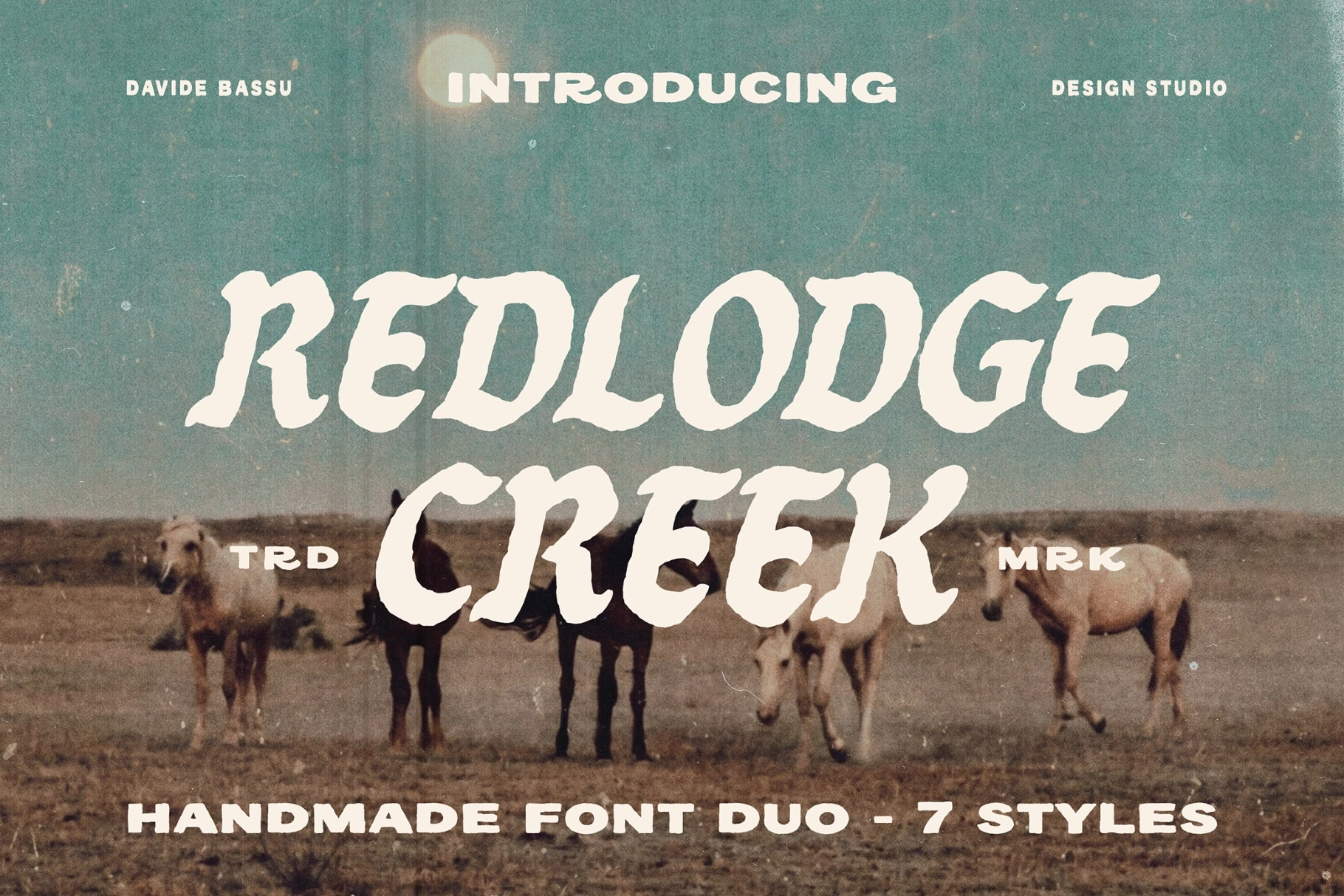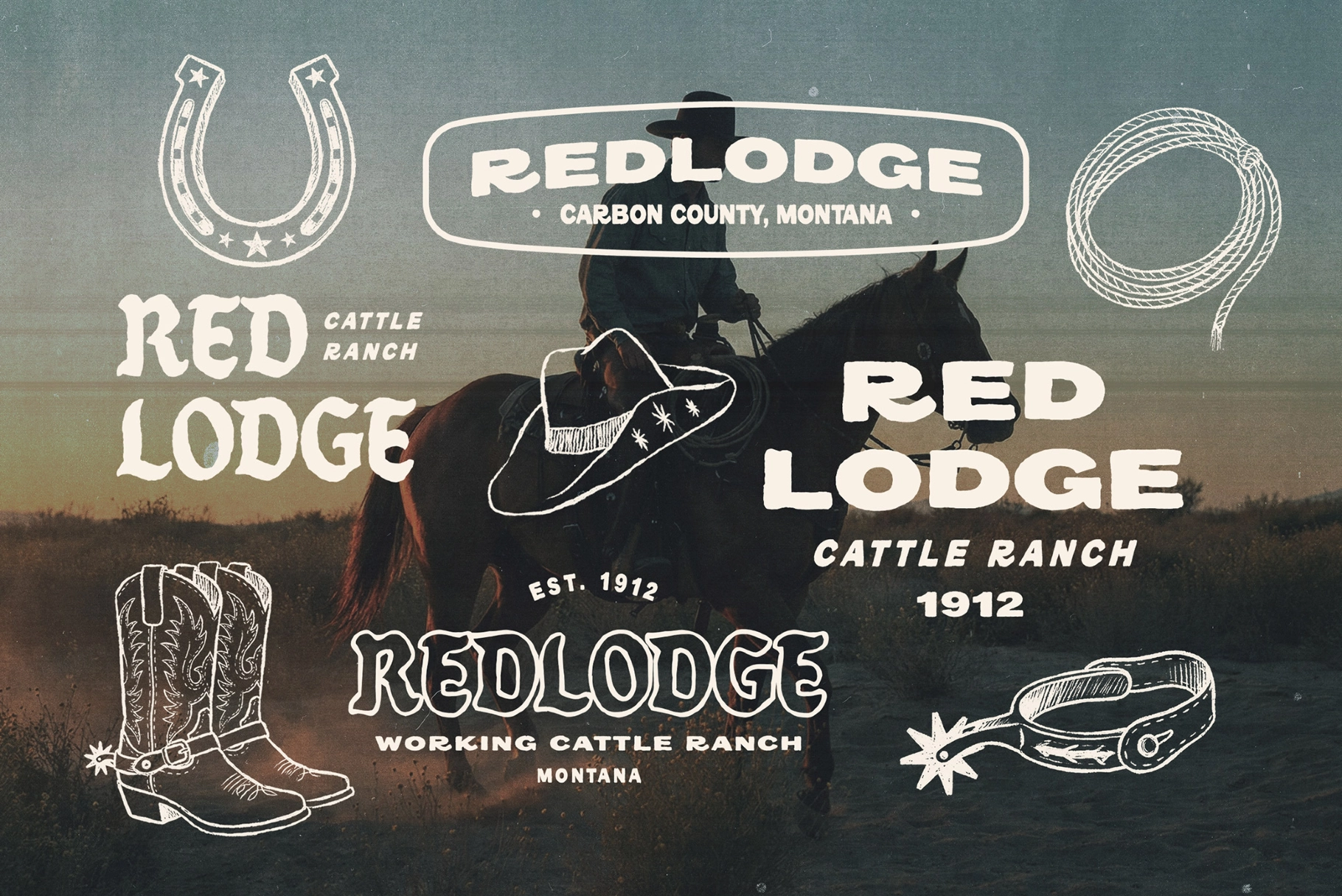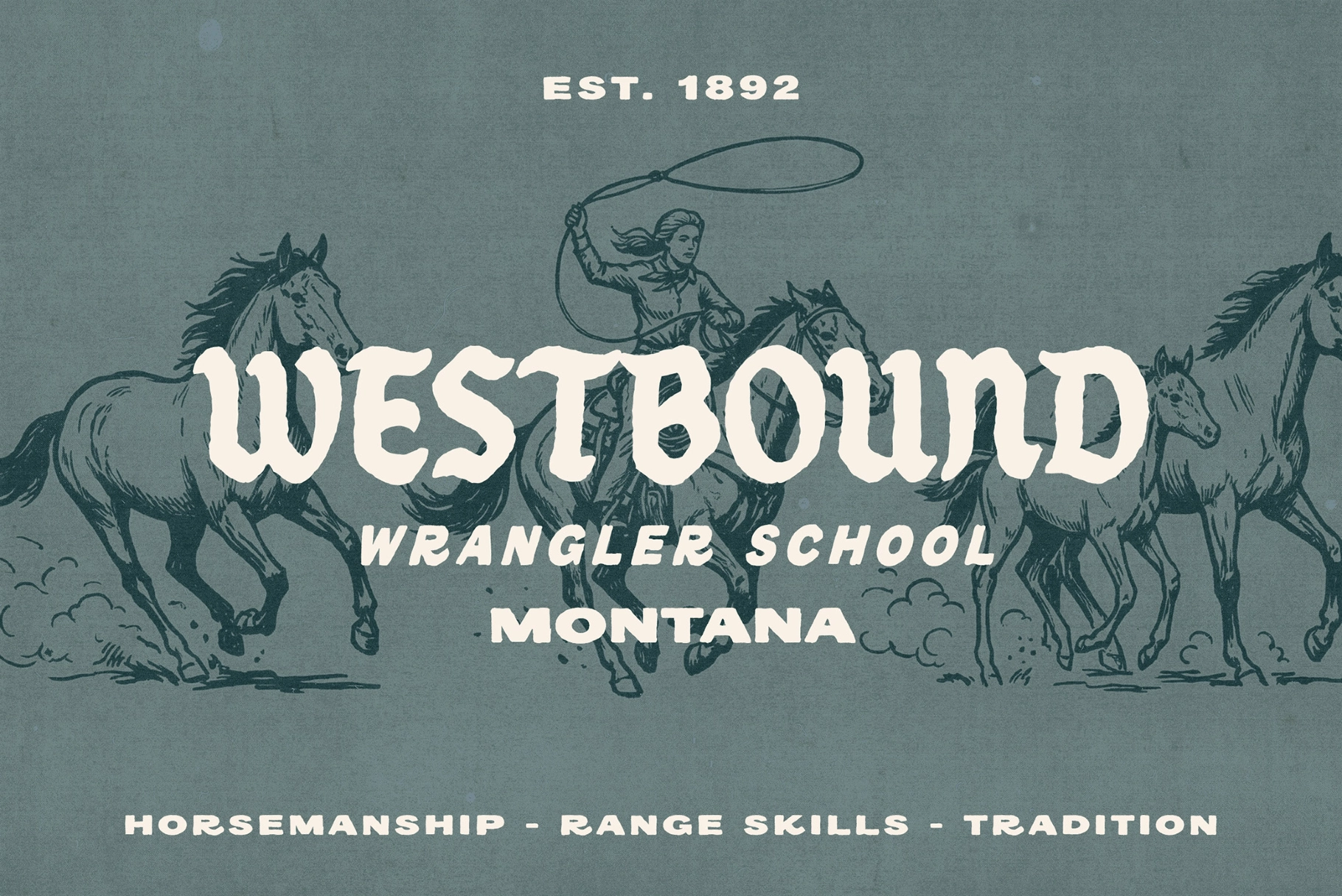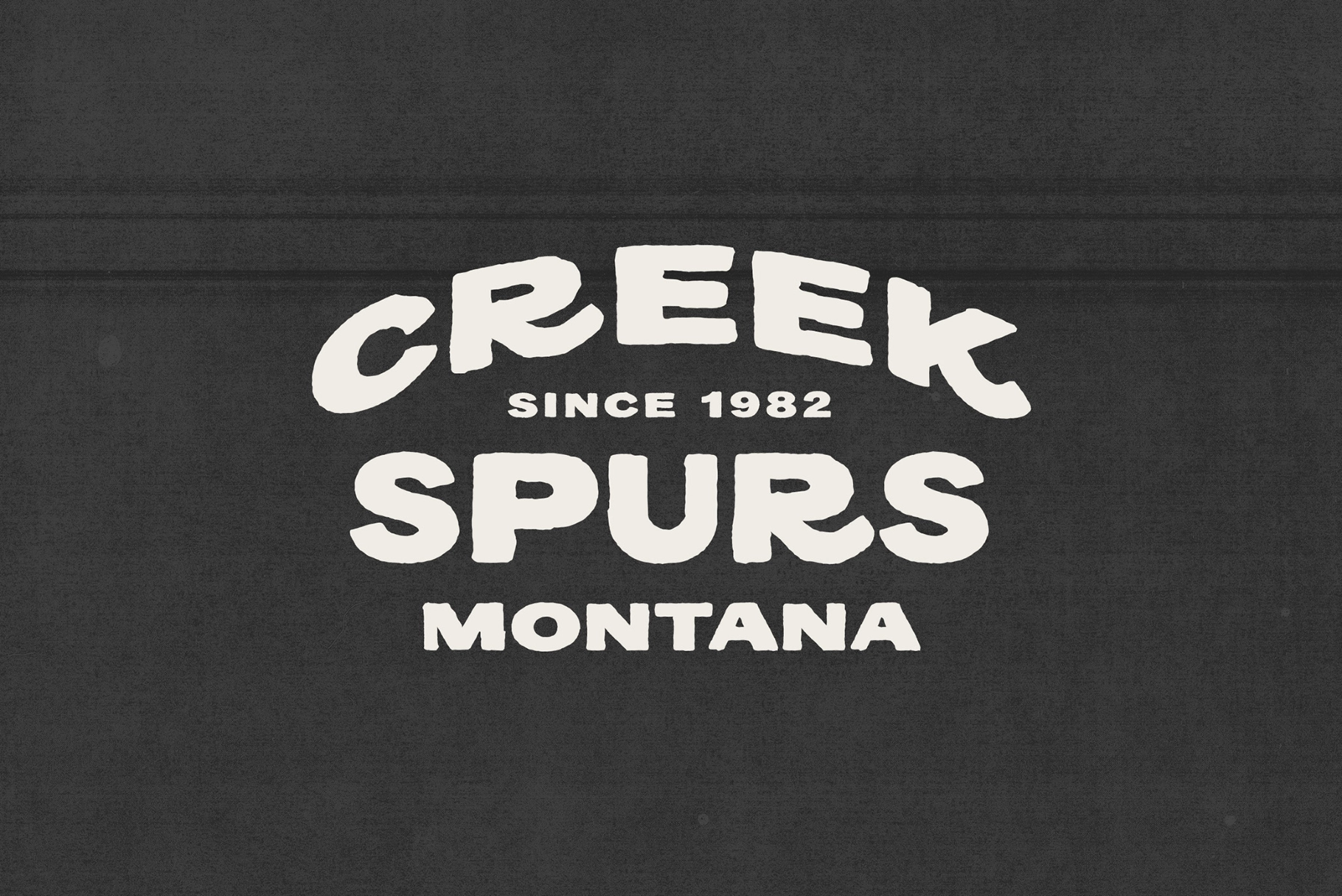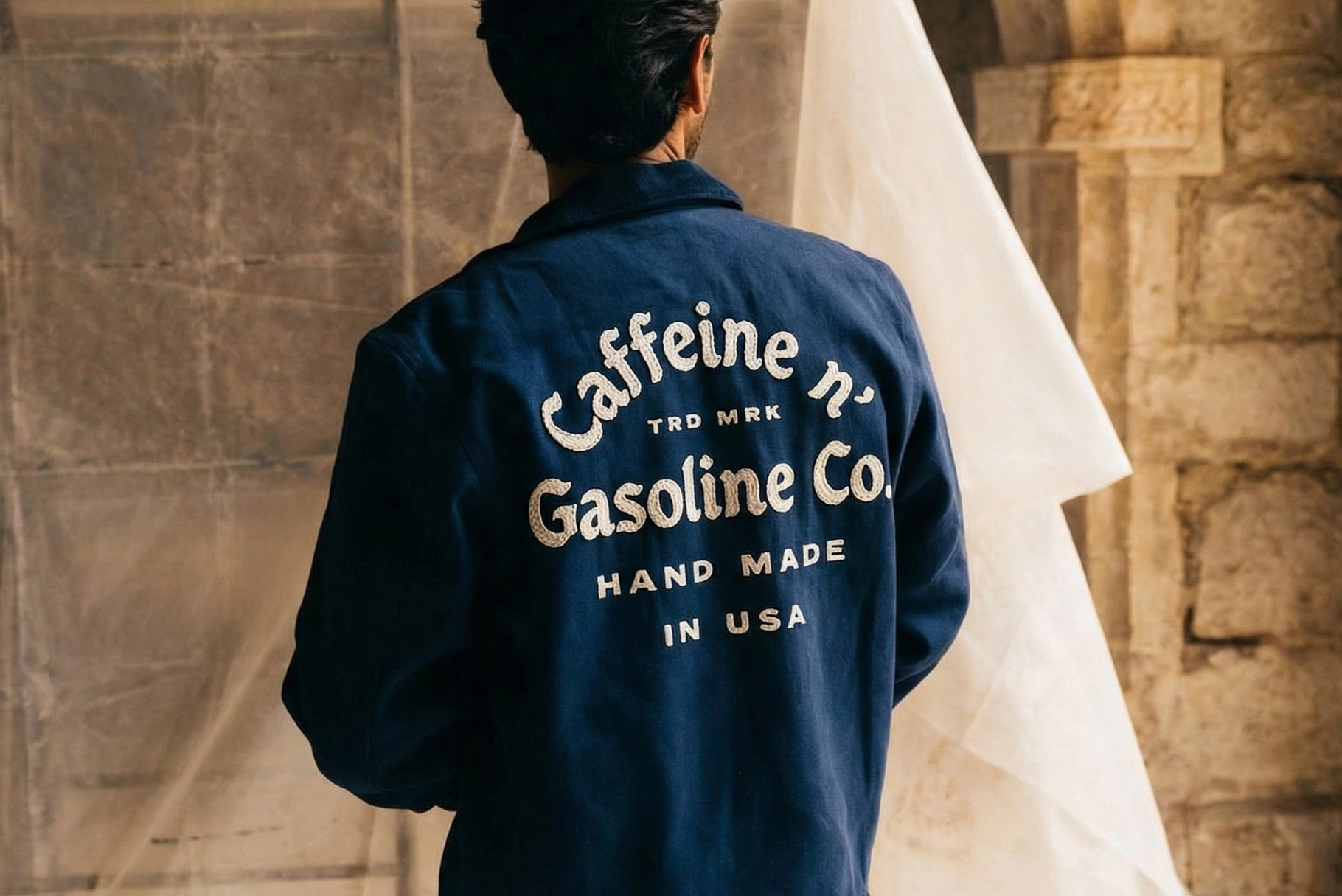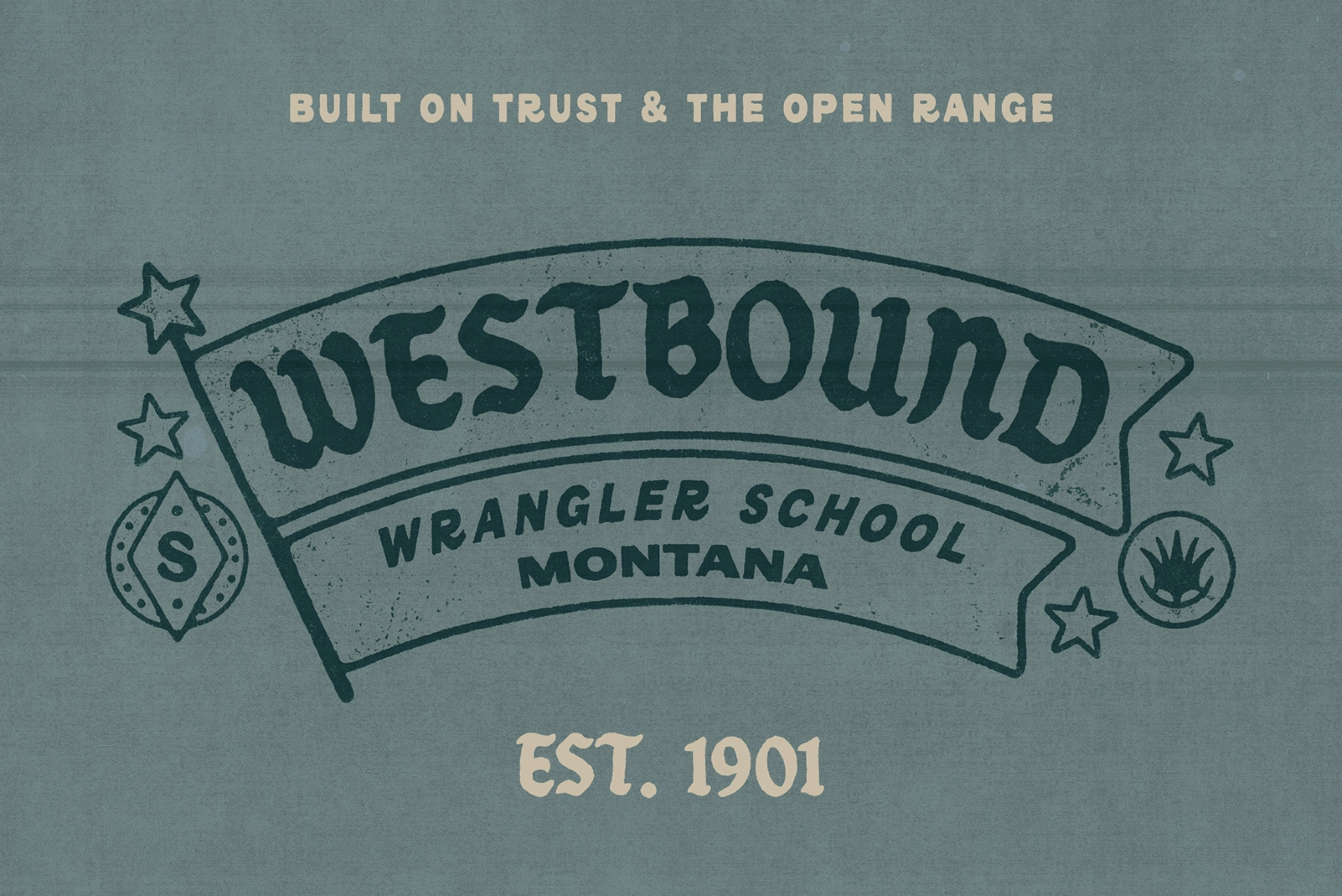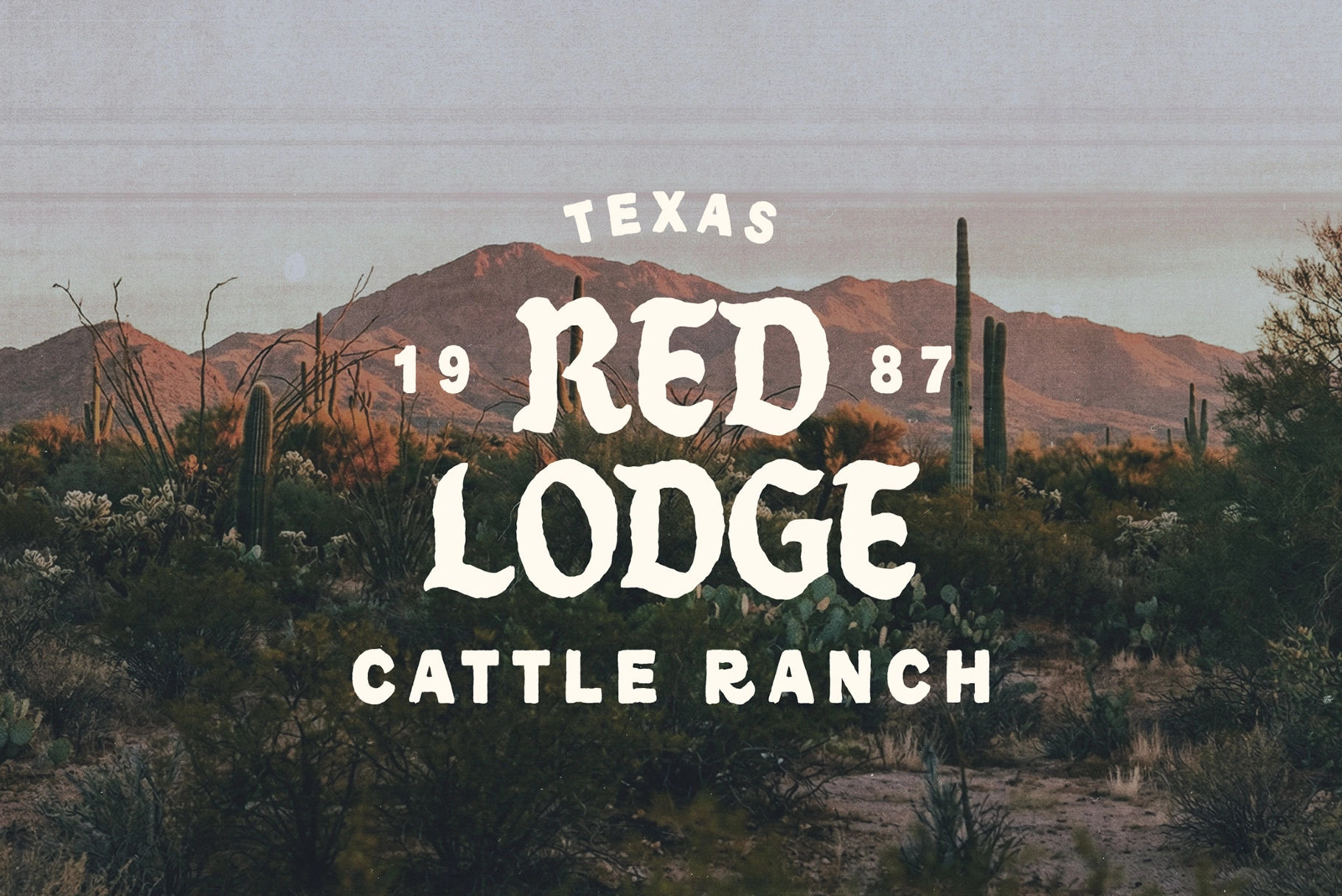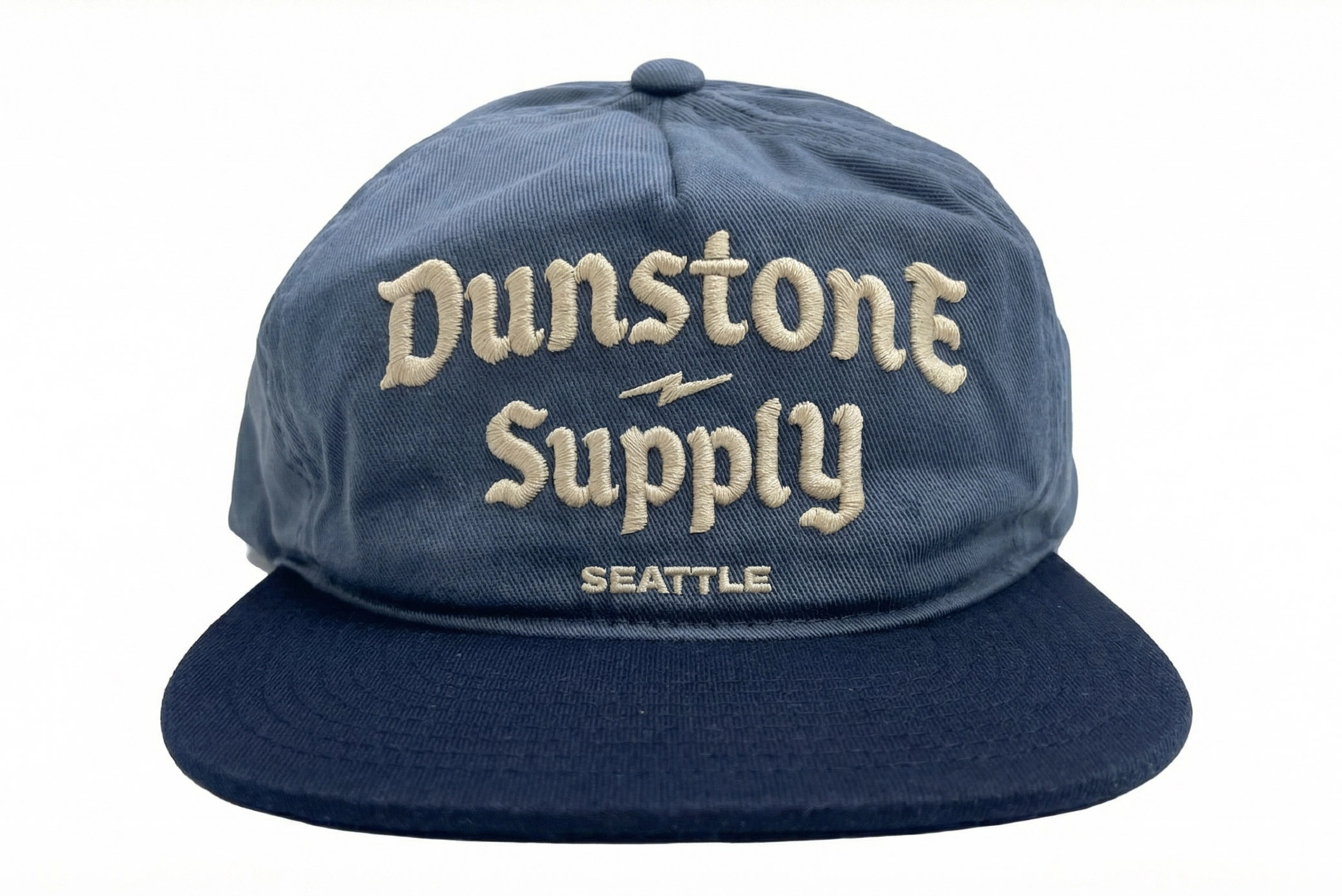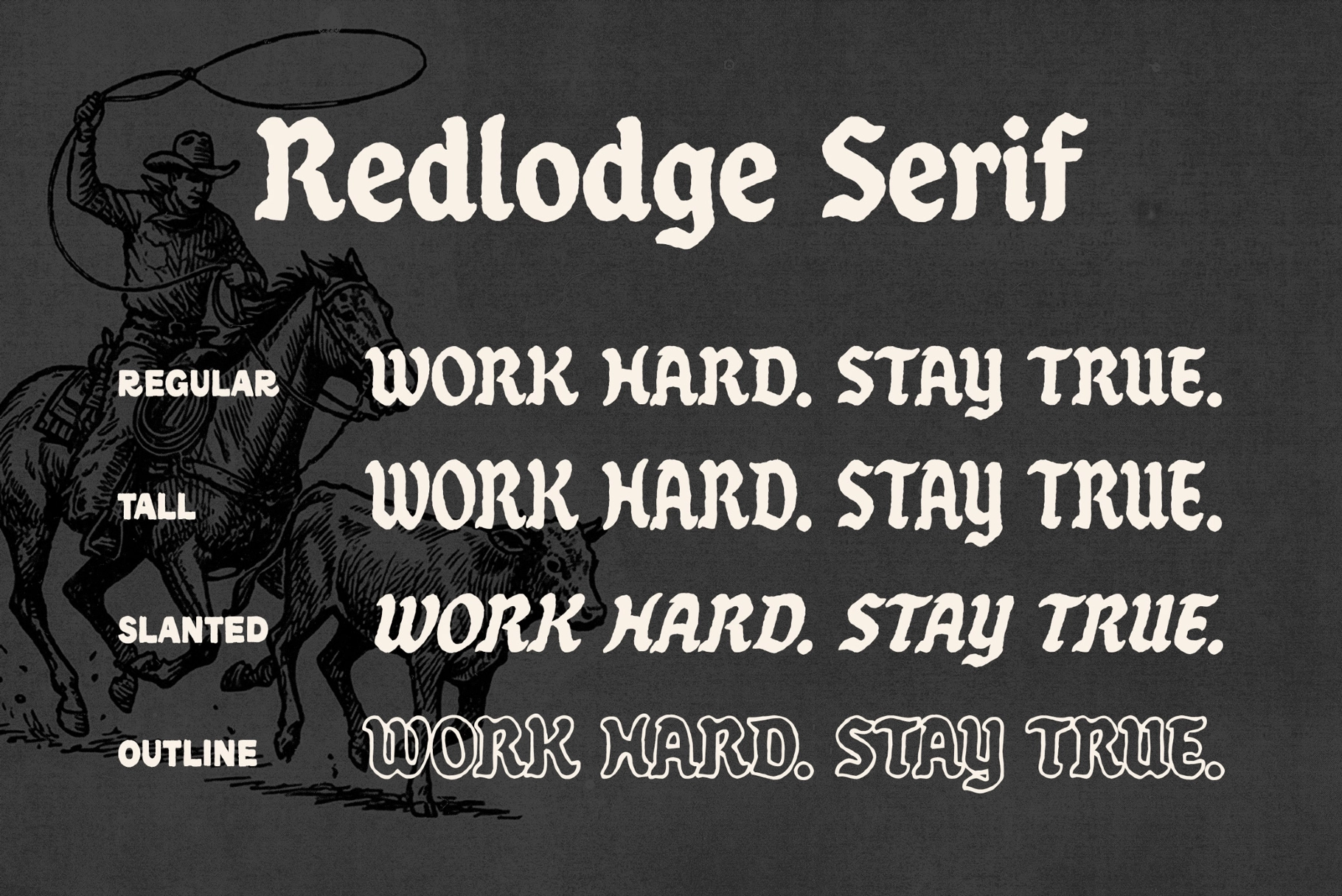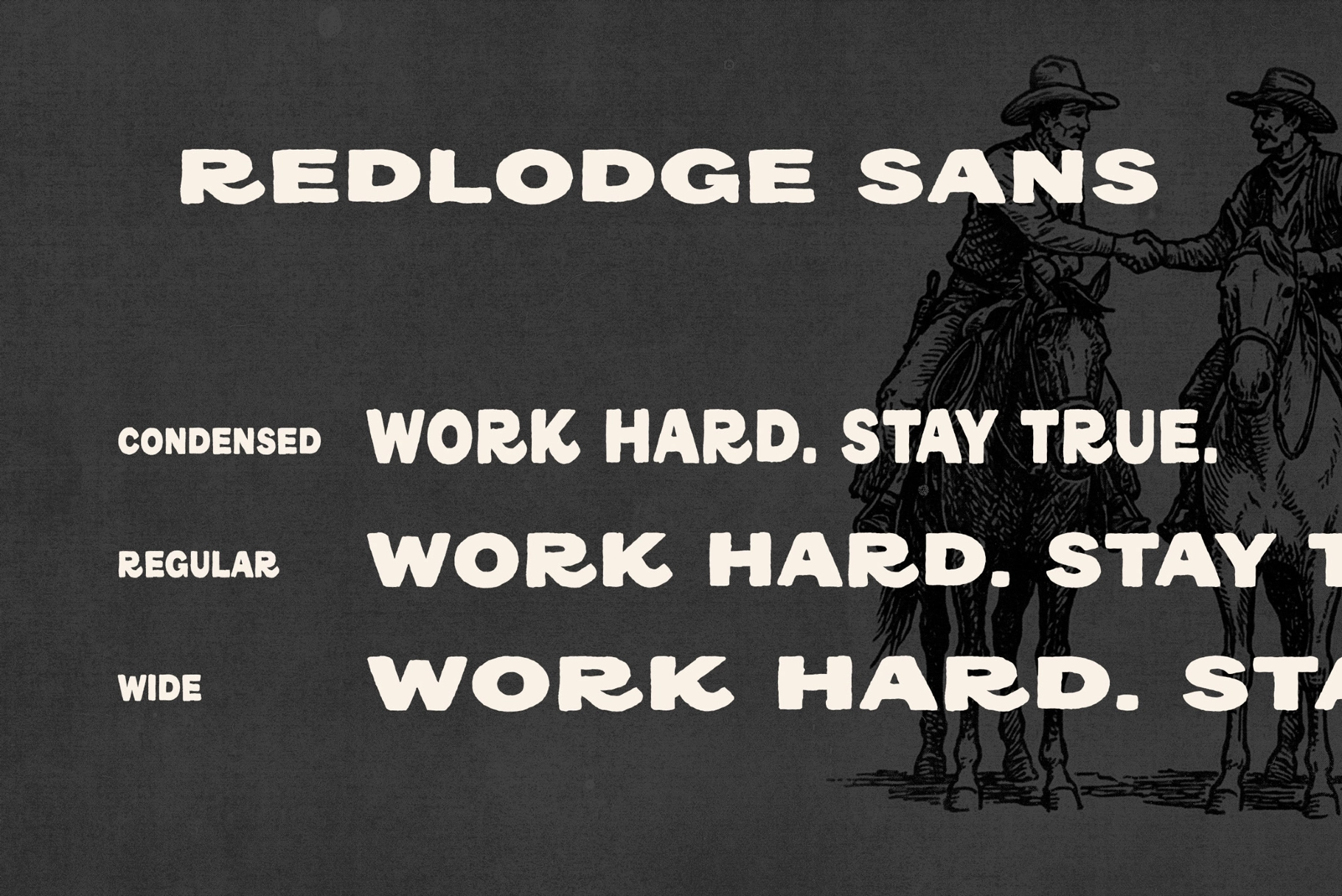
REDLODGE FONT DUO + Extra
A heritage serif and a workwear-grade sans carry the grit of American ranch life. REDLODGE's sturdy letterforms feature open and legible counters. The soft, hand-drawn edges add some human touch. The pair reads bold and rugged, then shifts to quiet restraint when you scale down or switch weights.
The two families lock together cleanly for logos and headlines, then split duties in longer copy. Expect dependable spacing, consistent rhythm, and a handmade cadence that holds up across stitched embroidery, foil stamps, and ink-heavy print.
- Ranch or outfitter wordmarks;
- Workwear patches;
- Whiskey or hot-sauce labels;
- Embroidery and chainstitch — wide cut for jackets, caps, and tote fronts;
- Event posters — rodeo bills, county fairs, bluegrass nights, BBQ cookouts;
- Editorial features — profiles on craftspeople, gear reviews, heritage photo essays;
- E-commerce assets — hero headlines, size guides, cart badges, collection banners;
- Stamp and seal graphics — wax seals, rubber stamps, ink pads for hangtags;
- Social campaigns — quote cards, short promos, carousel covers.
- 2 coordinated families: Serif and Sans.
- 7 styles: Regular, Tall, Slanted, Outline, Condensed, Wide, plus a second Regular variant for the companion family.
- uppercase and lowercase, numerals, punctuation, and multilingual support for Western European languages.